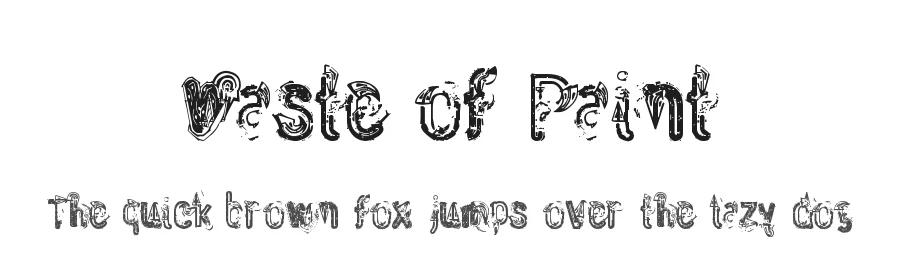
About Swirl Insertion Font
Swirl Insertion Specifications
| Font Family | SwirlInsertion |
| Full Name | SwirlInsertion |
| Version | 1.00 August 30, 2012, initial release |
| PostScript Name | SwirlInsertion |
| Designer | Max Infeld |
Swirl Insertion supports 89 languages.
Swirl Insertion Font is a decorative font that shines as a display or heading face. Pair it with a clean sans-serif or serif font for body text β the contrast creates a clear hierarchy while the two styles stay balanced and easy to read.
Swirl Insertion Font